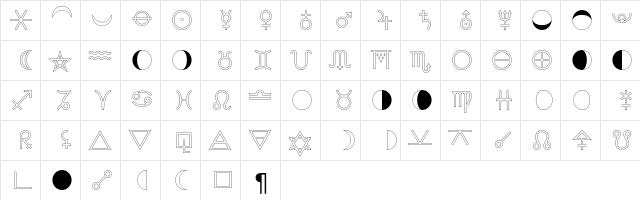
AstrotypeP LT Std Outline Regular
Regular · Linotype GmbH Andreas Hild ·
DesignerAndreas Hild
Design Context for AstrotypeP LT Std Outline Typeface
AstrotypeP LT Std Outline is built around its visual character rather than neutral utility — its distinctive forms are designed to make an impression at display sizes. Its slender proportions lend an understated elegance to any composition.
Font Pairing: Pair with a clean neutral sans-serif for body copy to let AstrotypeP LT Std Outline's character lead without overwhelming the composition.
Pro Tip: Treat AstrotypeP LT Std Outline as the centrepiece of your typographic hierarchy. One strong heading set in a decorative face can carry an entire layout.